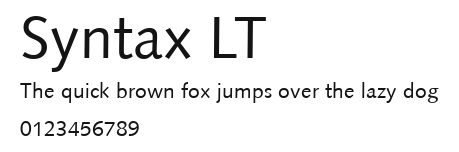
Syntax LT Preview
About Syntax LT.ttf
Syntax LT.ttf is a modern, elegant sans-serif font designed for ultimate readability and visual harmony. Perfect for branding, headlines, web design, and print materials.